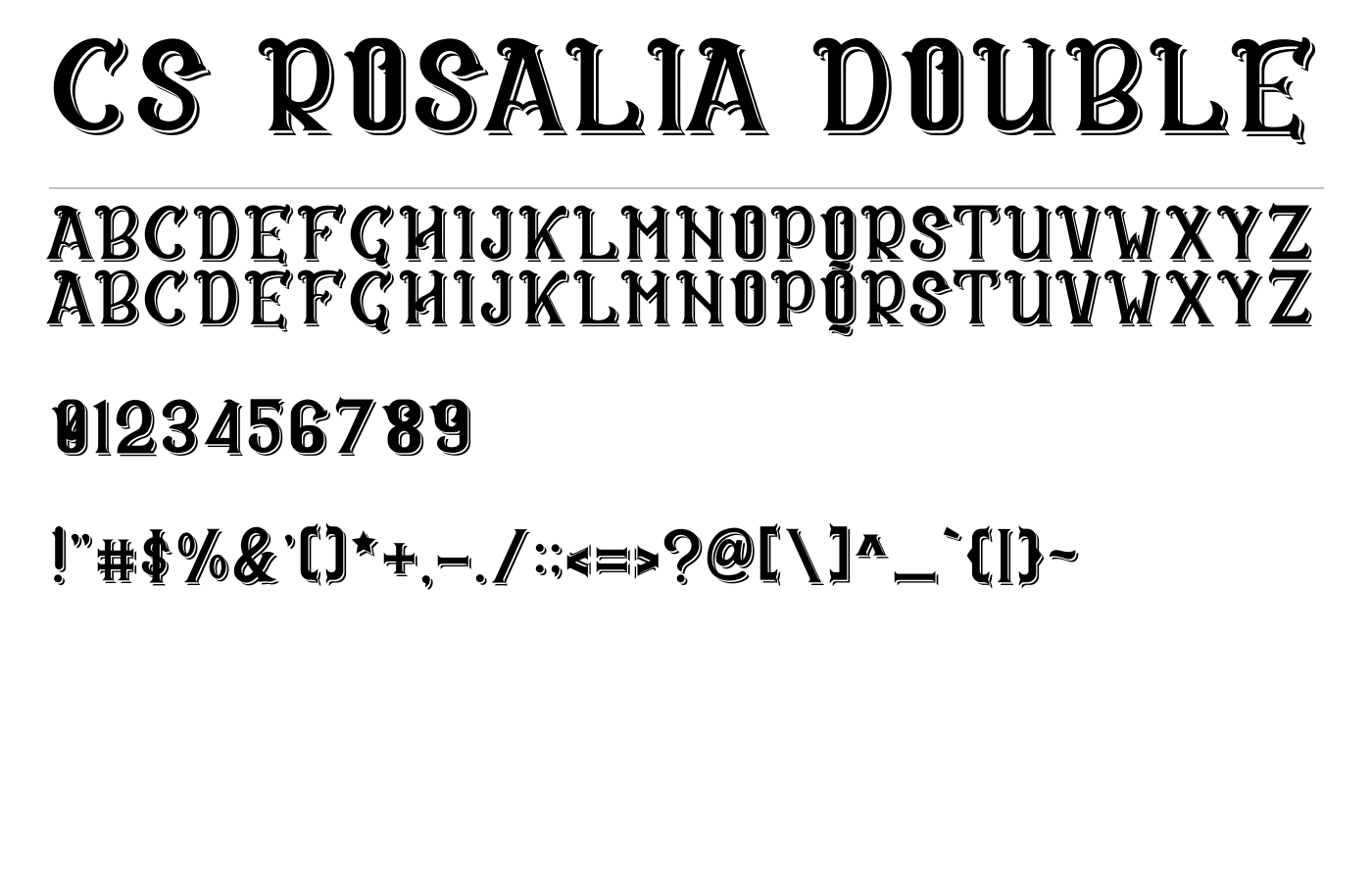
CS Rosalia Double is a bold serif display font with a vintage, Western-inspired style characterized by its layered double-line shadow effect and intricate detailing on each letter. Its tall, condensed letterforms with bracketed serifs and decorative flourishes make it ideal for eye-catching headlines, logos, and packaging that seek to evoke an old-time charm or rustic elegance. This font works best in designs that want to stand out with a strong, nostalgic personality while maintaining readability.
CS Rosalia Font
About CS Rosalia Font